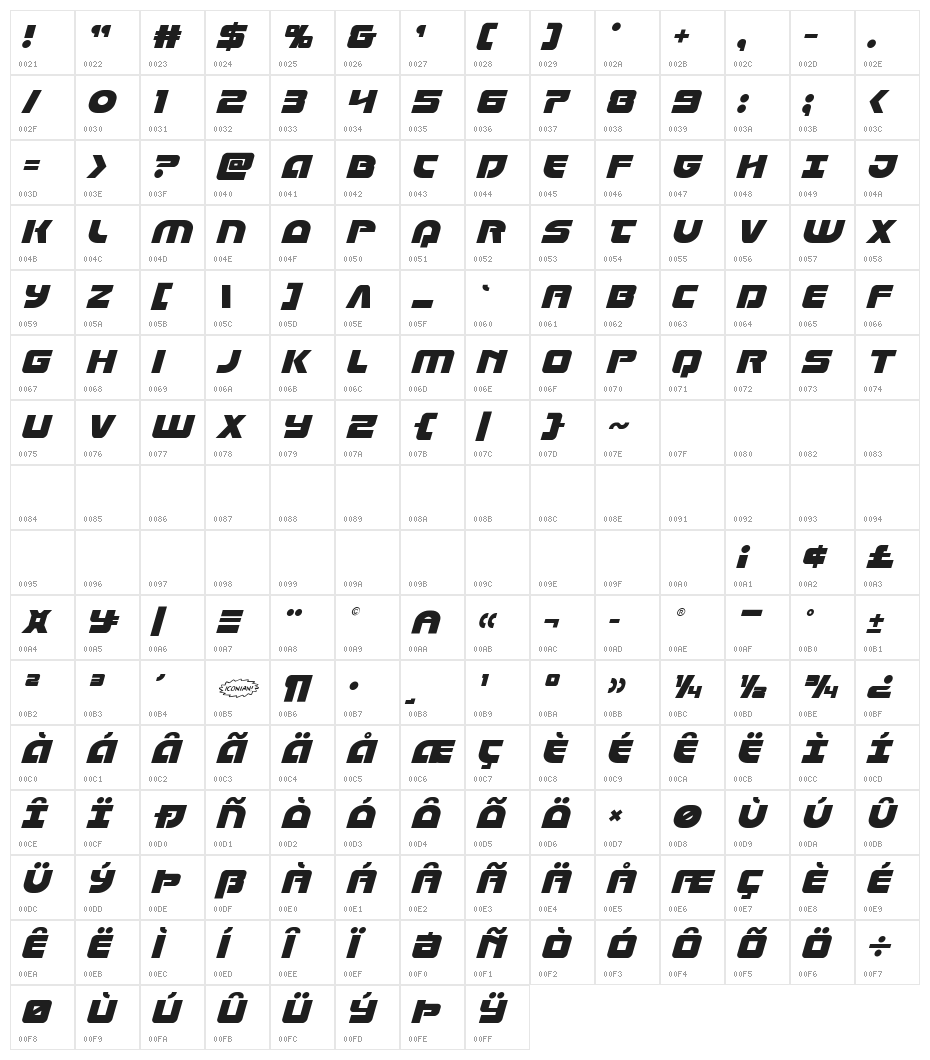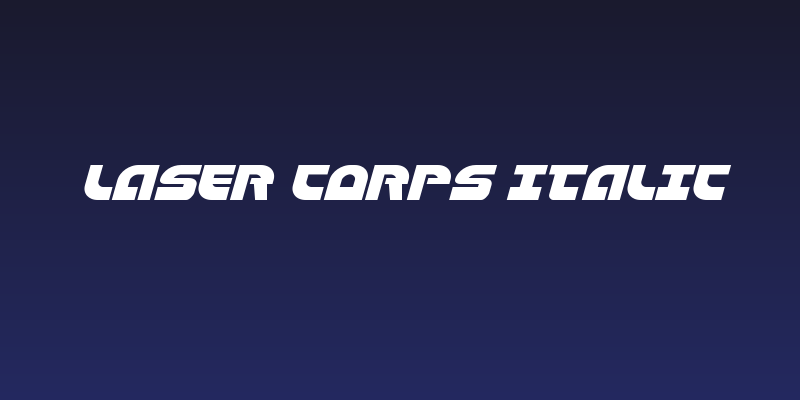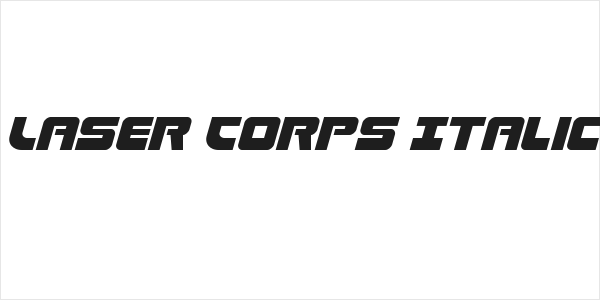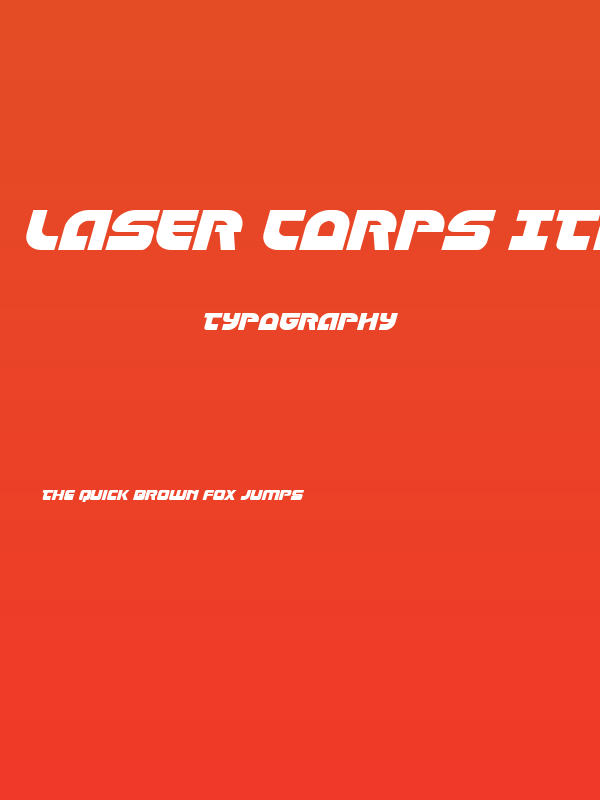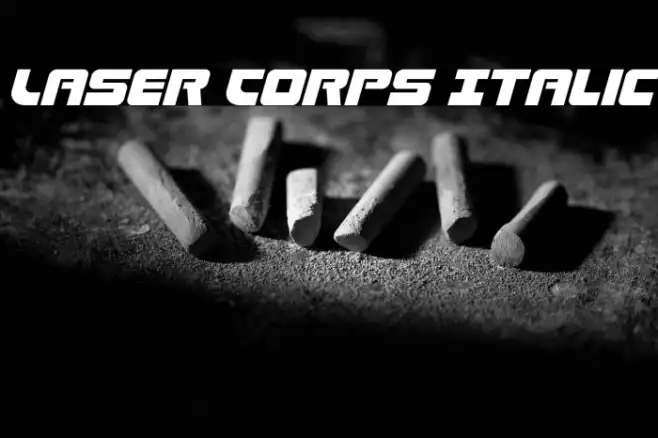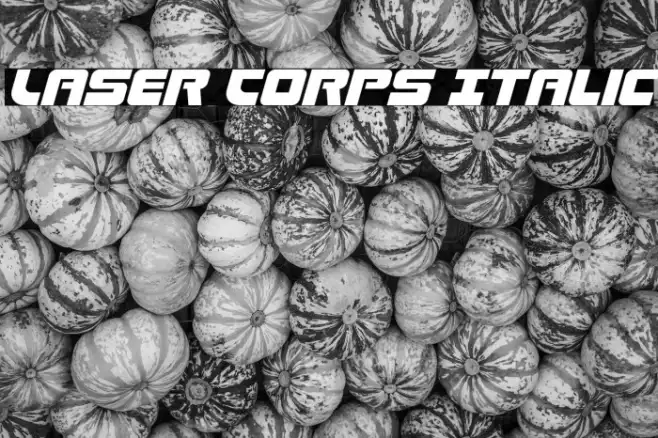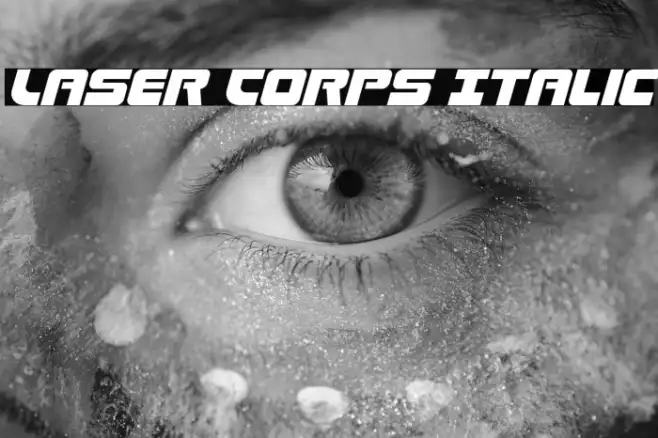
Laser Corps Italic Font
Laser Corps Italic Description
This font features a bold, futuristic design with a strong emphasis on angular shapes and a forward-leaning italic style. The characters are designed with a consistent slant, giving them a dynamic and energetic appearance. The uppercase and lowercase letters maintain a uniform width, contributing to a cohesive look. The numbers and special characters follow the same stylistic approach, ensuring a seamless integration across different uses. The font's boldness and unique style make it suitable for projects that require a modern and impactful visual presence.
| Proposed Projects | Ideal for sci-fi themed designs, video game titles, tech branding, and futuristic posters. |